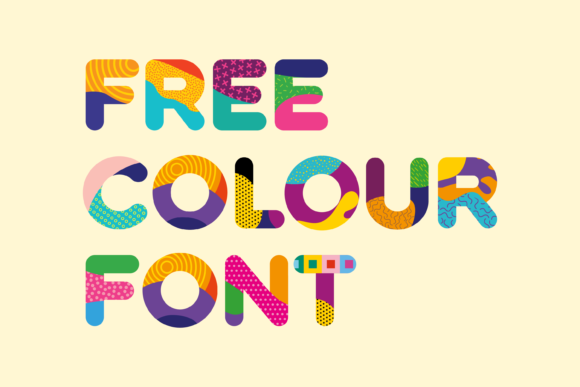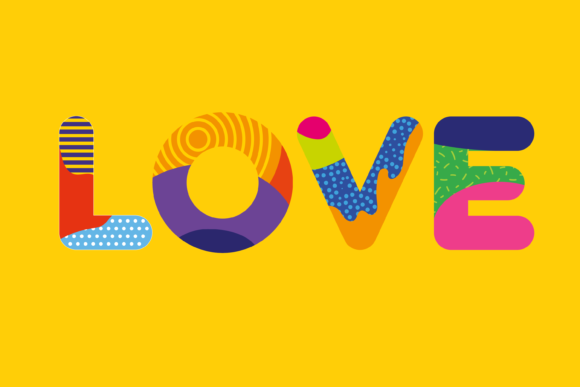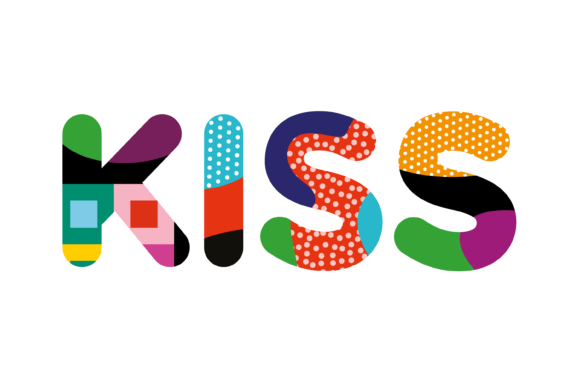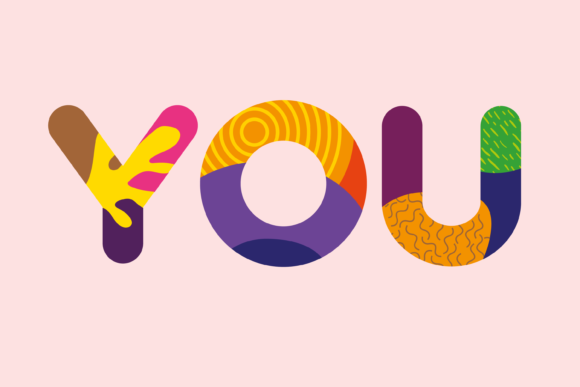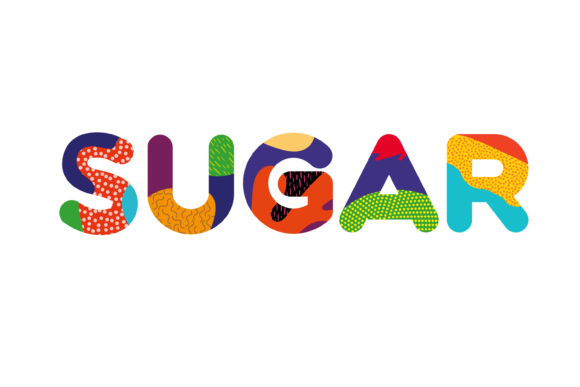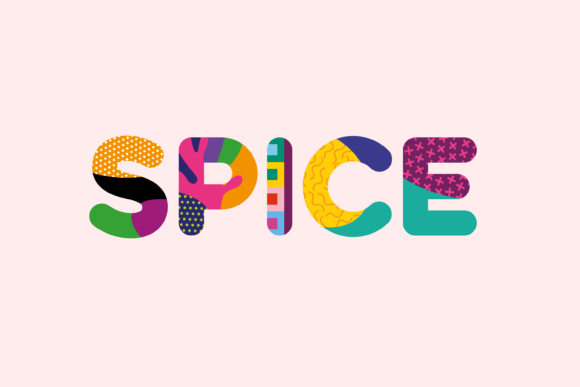
The Power of Fattern Font: Unleashing Creativity in Design
I’ll never forget the moment I stumbled upon the perfect font for a client’s project. It was a vibrant, bold, and colorful typeface that instantly elevated the entire design. That font was Fattern, and it has since become a staple in my design toolkit. In this article, I’ll share my experience with Fattern, its features, and how to make the most of this incredible color font.
My First Encounter with Fattern
I was working on a branding project for a children’s play center, and the client wanted something fun, playful, and eye-catching. I had been searching for hours, but nothing seemed quite right. That’s when I discovered Fattern. Its friendly feel and bold, colorful design immediately caught my attention. I knew I had found the perfect fit.
An Honest Review of Fattern
• Versatility: Fattern’s friendly feel makes it incredibly versatile, fitting a wide range of contexts, from playful designs to bold statements.
• Colorful: As a color font (Opentype-SVG), Fattern adds an extra layer of depth and visual interest to any design.
• 💡 Creative Freedom: With Fattern, you can experiment with various colors and styles to create unique and eye-catching designs.
While Fattern is an amazing font, there are a few things to keep in mind:
• ⚠️ Learning Curve: If you’re new to color fonts or Opentype-SVG, you might need to spend some time learning how to use Fattern to its full potential.
Fattern, as an Opentype-SVG font, offers a range of features and glyphs to enhance your designs. Here are a few tips:
• Stylistic Alternates: Experiment with different stylistic alternates to add variations to your text.
• Glyphs: Use Fattern’s glyphs to add extra visual interest to your design.
The Backstory of Fattern
Fattern was designed with the goal of creating a bold, colorful font that would inspire creativity and playfulness. Its friendly feel and versatile design make it perfect for a wide range of projects, from branding and advertising to crafting and DIY projects.
What is Fattern? Fattern is a bold and colorful color font (Opentype-SVG) designed for creative projects.